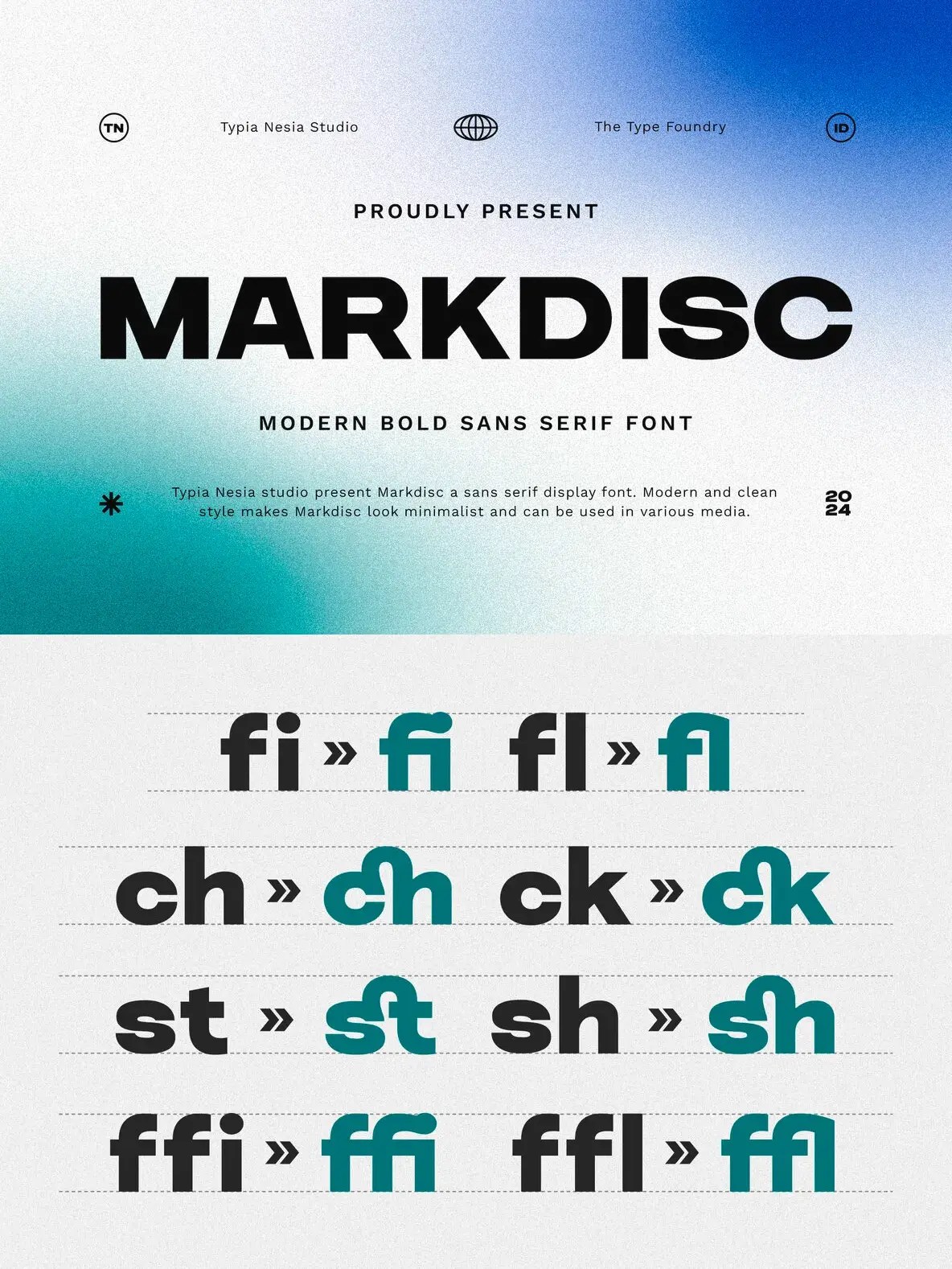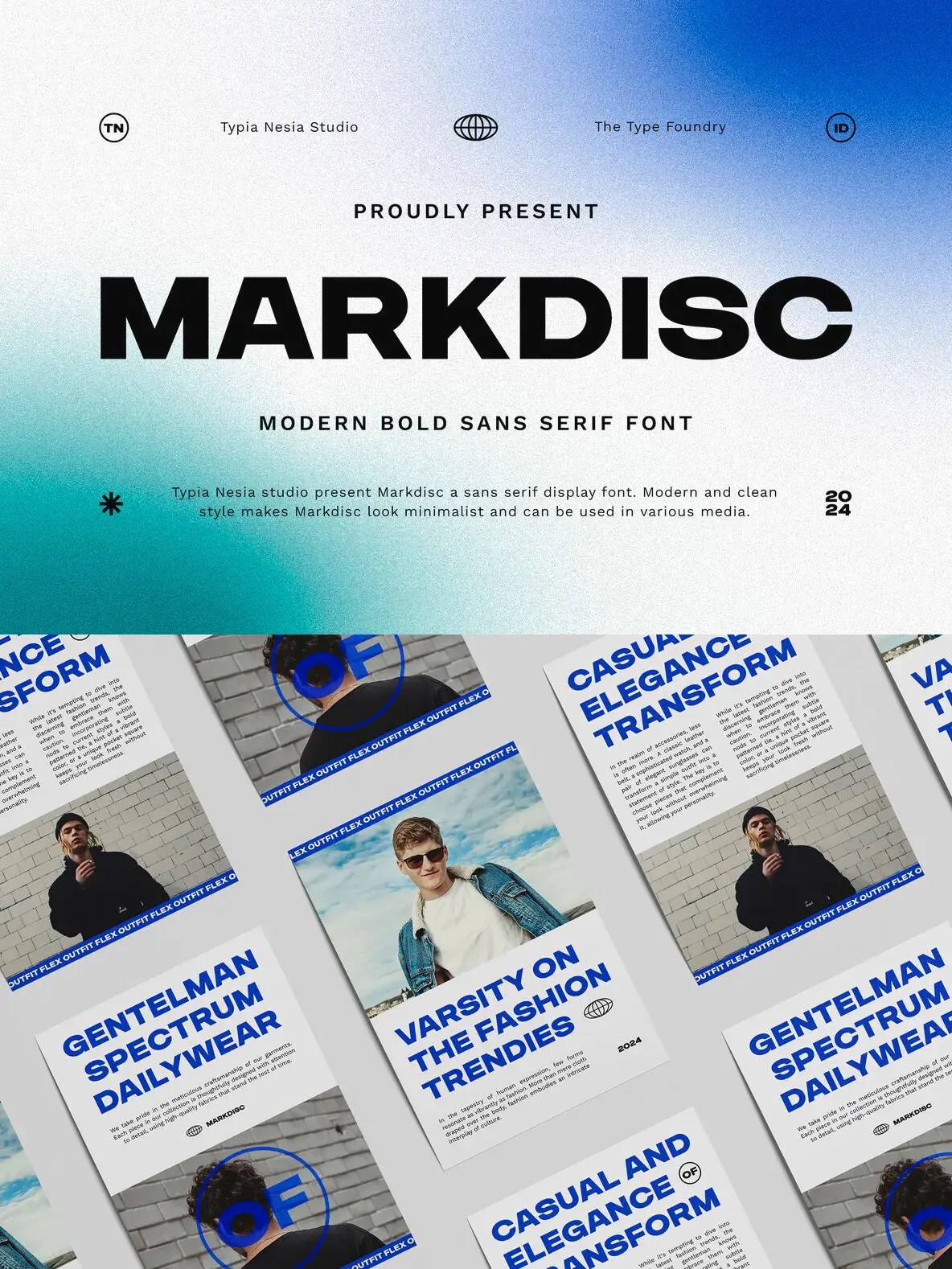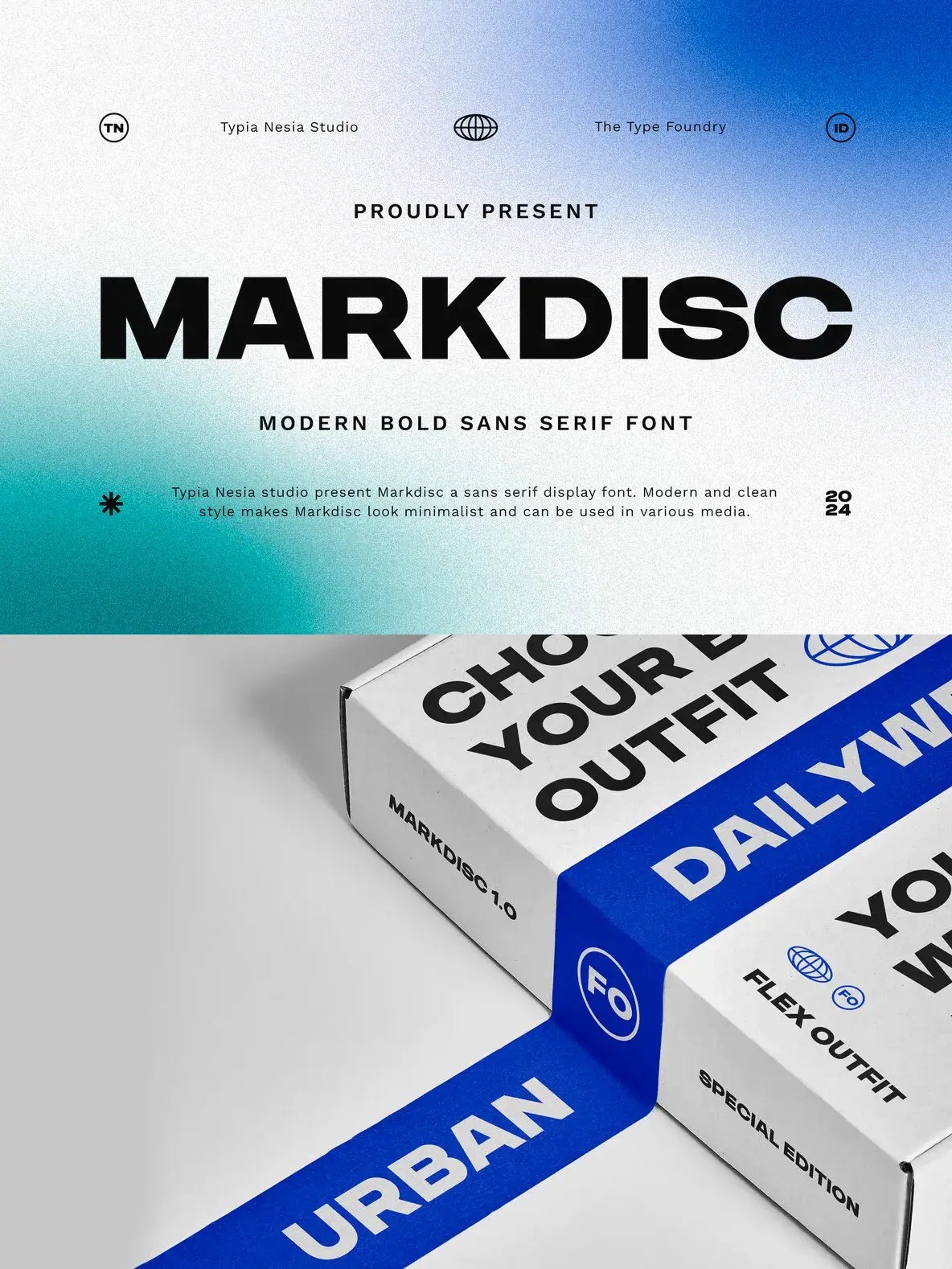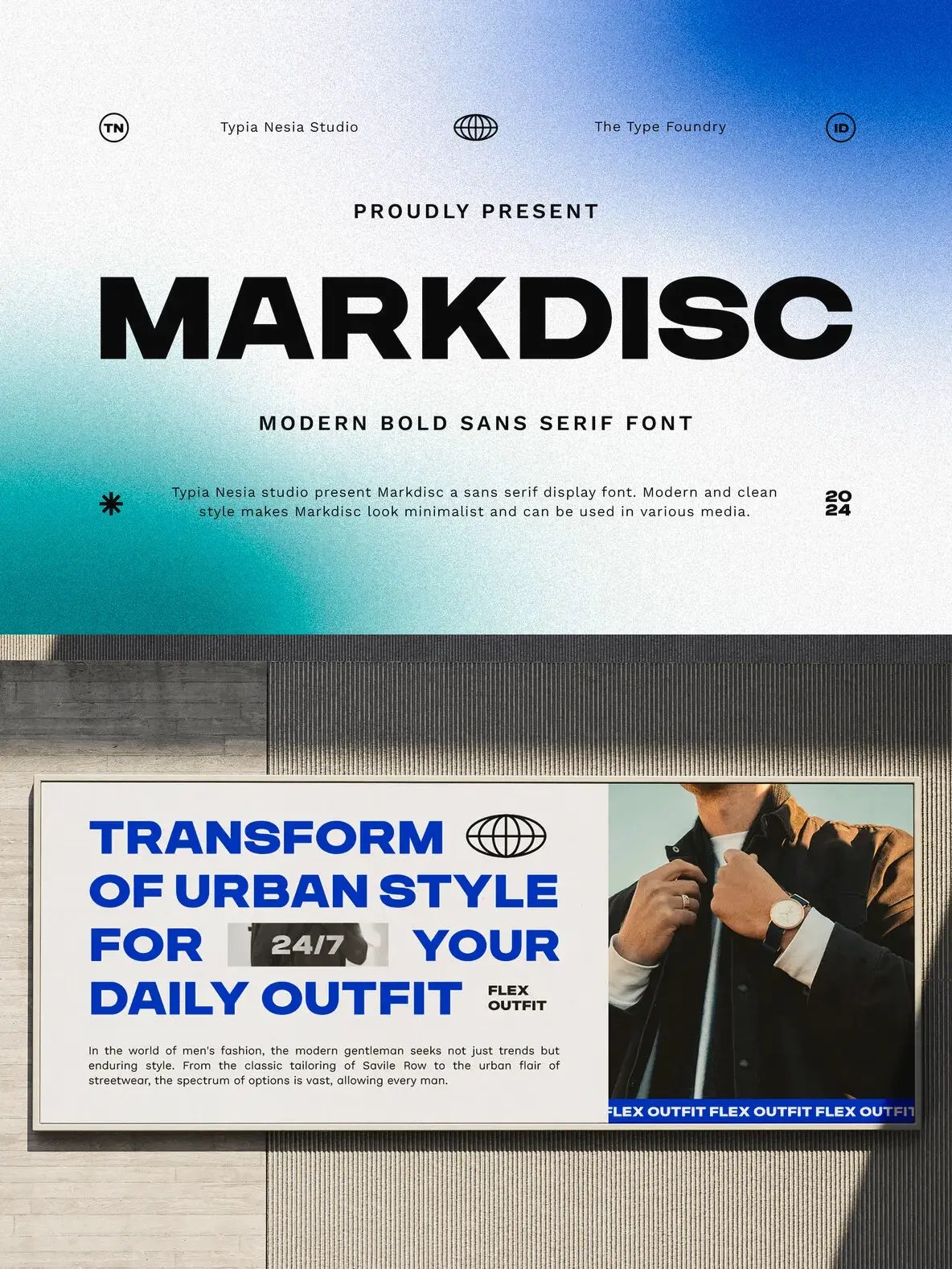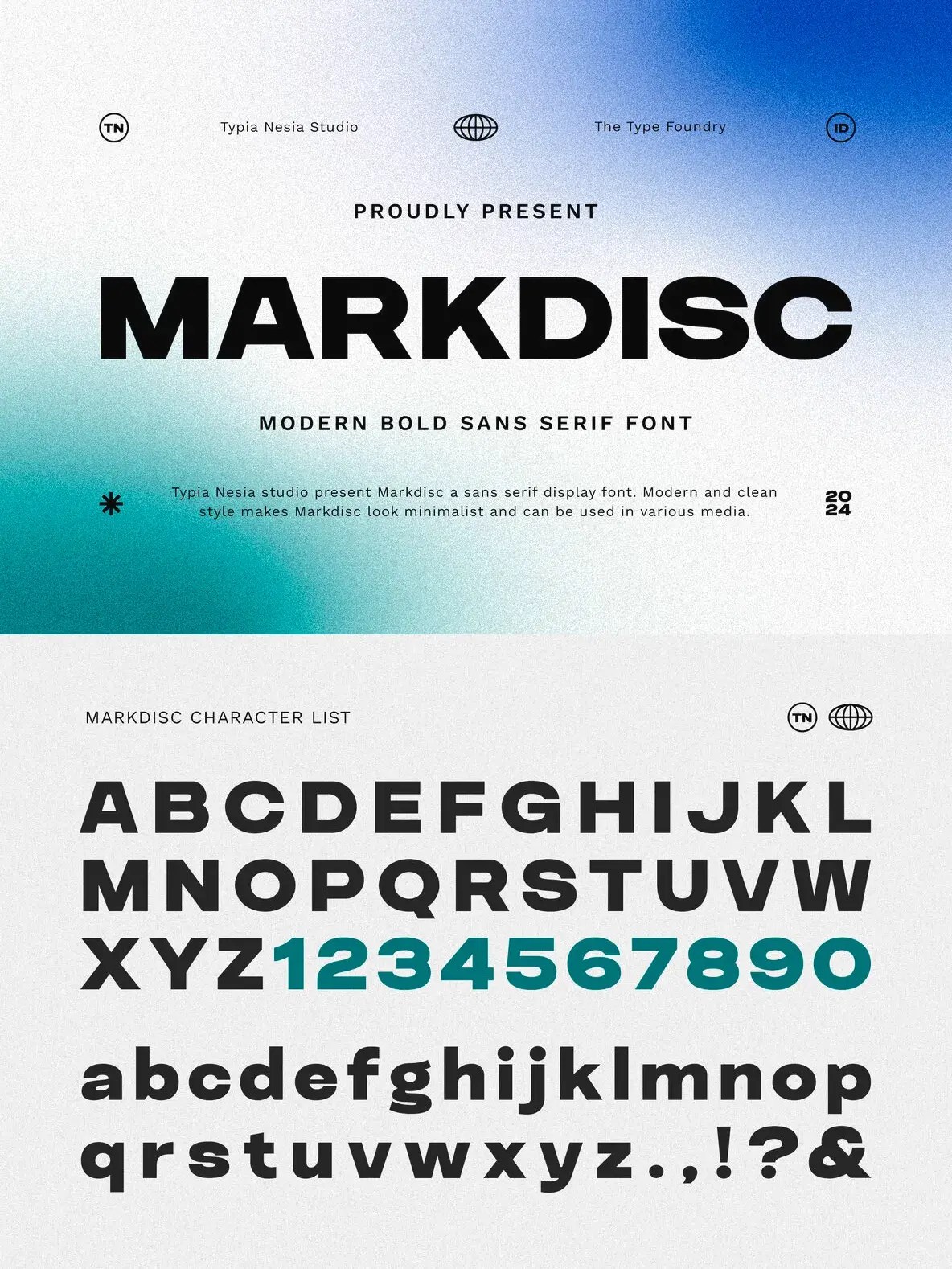
Markdisc Font
Bold sans serif font Markdisc: Clean lines, strong strokes. Versatile for
branding, logos, web, print. Ligatures, alternates, multilingual support.